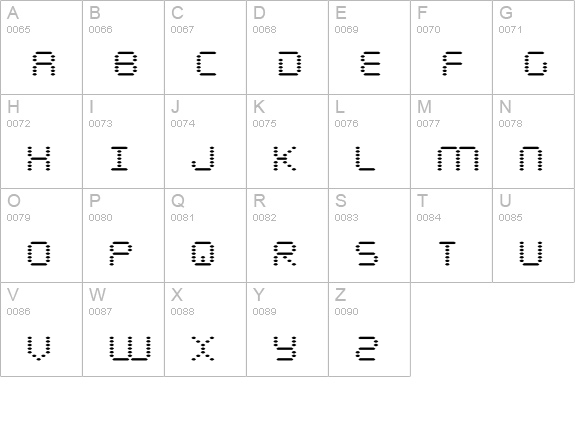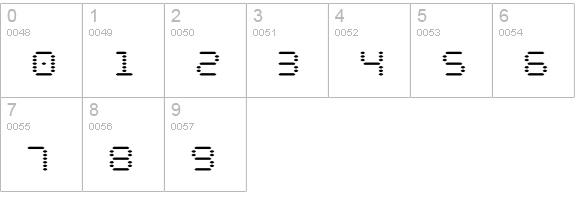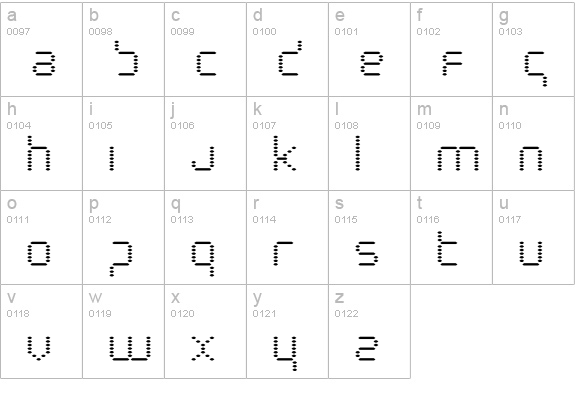
Byte Police Font Details
Introducing Byte Police font, a sleek and modern typeface that combines futuristic elements with a touch of retro charm. This versatile font is perfect for a wide range of design projects, from branding to digital art and everything in between. With its clean lines and bold letterforms, Byte Police font commands attention and adds a dynamic edge to any creative endeavor. Whether you're working on a tech-inspired logo or designing a poster for a sci-fi event, this font is sure to make a statement. The best part? Byte Police font is available for free download at FontsMarket.com, making it accessible to designers of all levels. So why wait? Add a touch of digital sophistication to your next project with Byte Police font today!